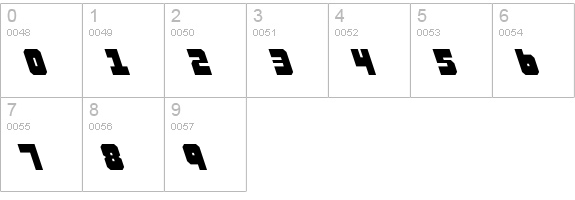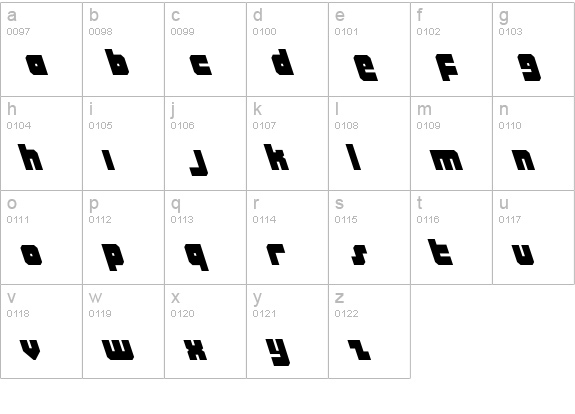
Introducing Alpha Taurus Leftalic font - a sleek and modern typeface that exudes elegance and sophistication. With its bold lines and stylish curves, this font is perfect for making a statement in any design project. The Alpha Taurus Leftalic font is versatile and can be used for a variety of purposes, from branding to editorial design. What sets this font apart is not only its striking aesthetic appeal but also its accessibility - it is available for free download at FontsMarket.com. Whether you're a seasoned designer looking to add a fresh touch to your work or a beginner exploring typography for the first time, Alpha Taurus Leftalic font is a fantastic choice that won't break the bank. Don't miss out on this opportunity to elevate your designs with this stunning and free typeface.